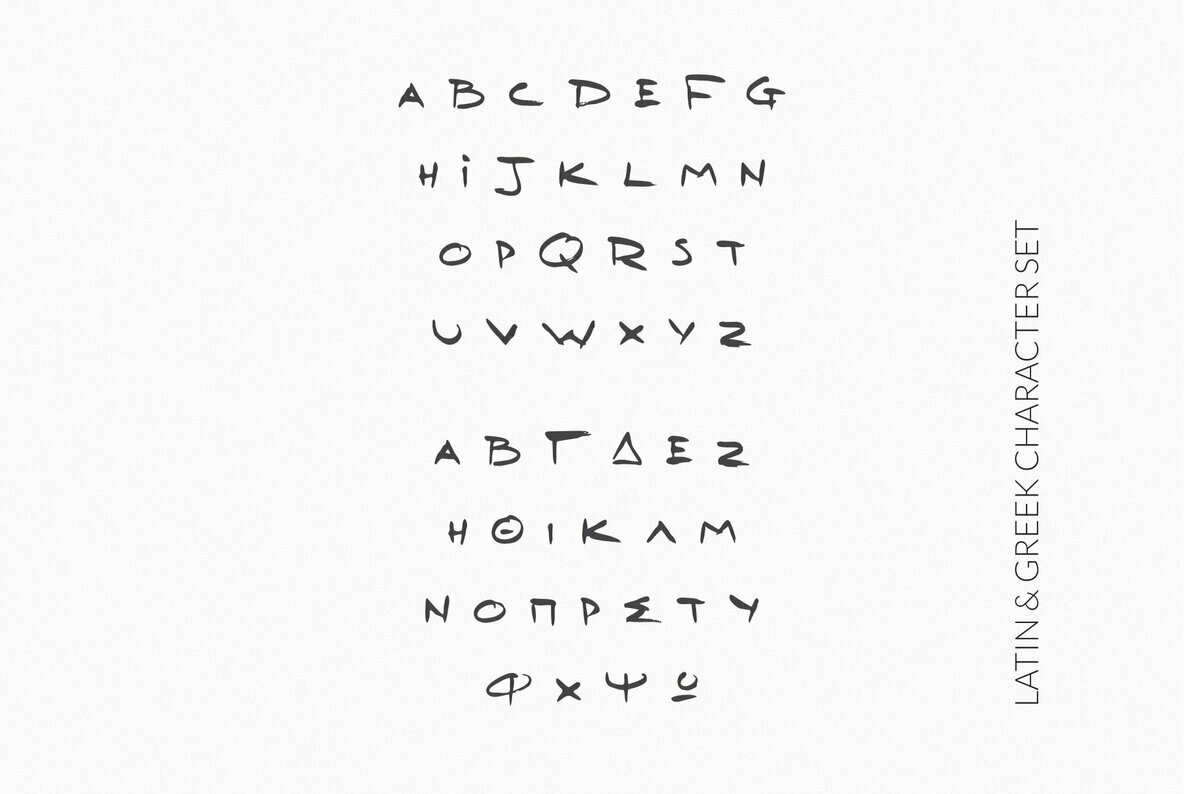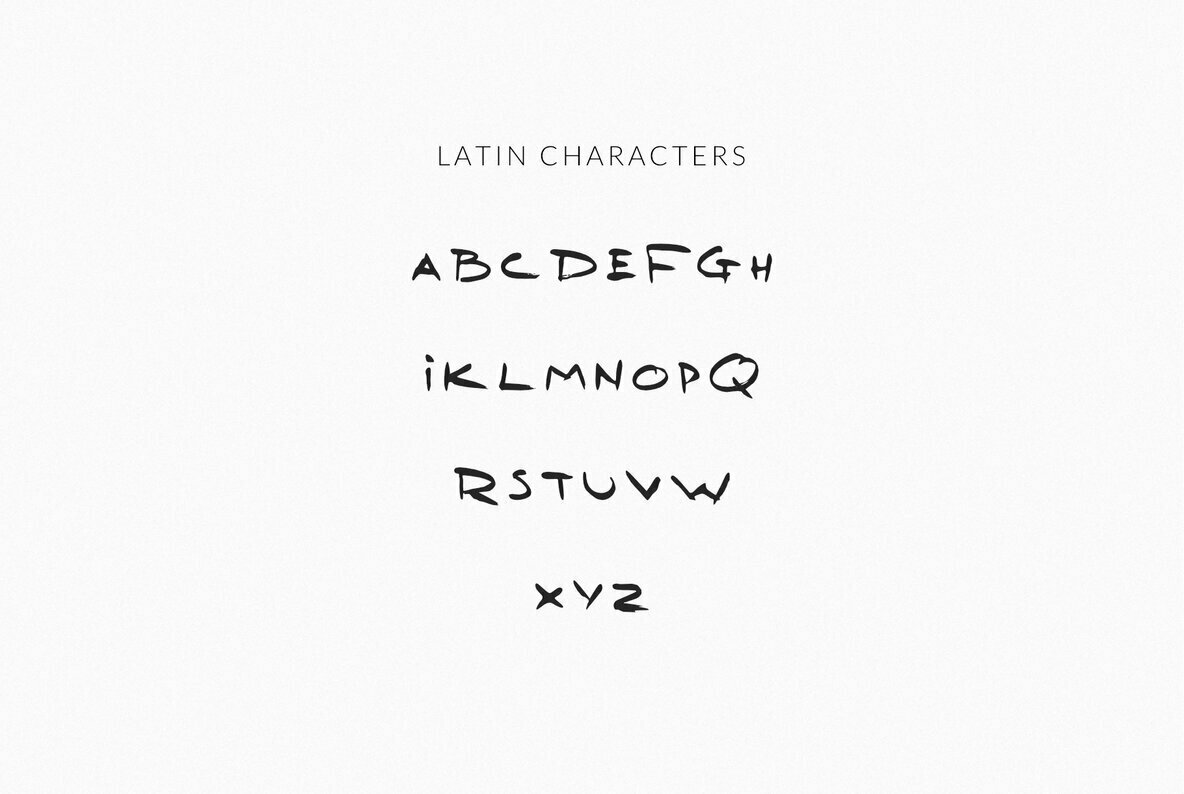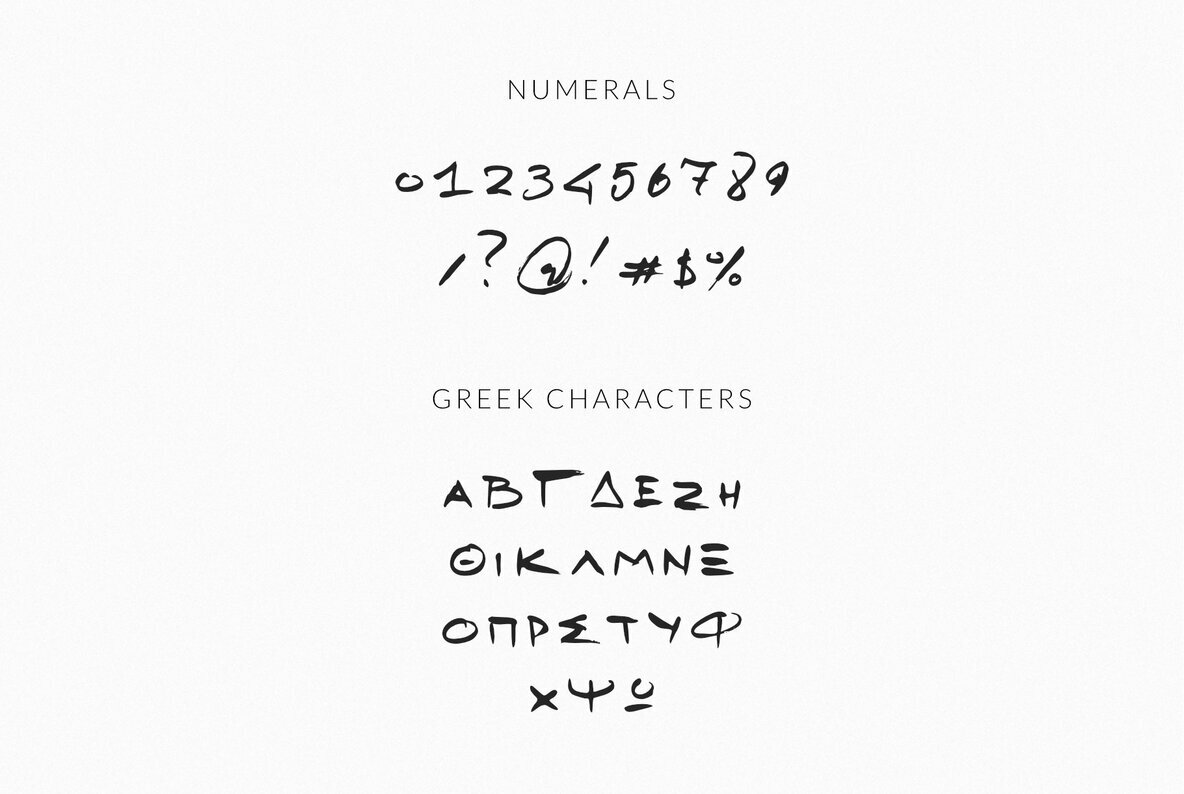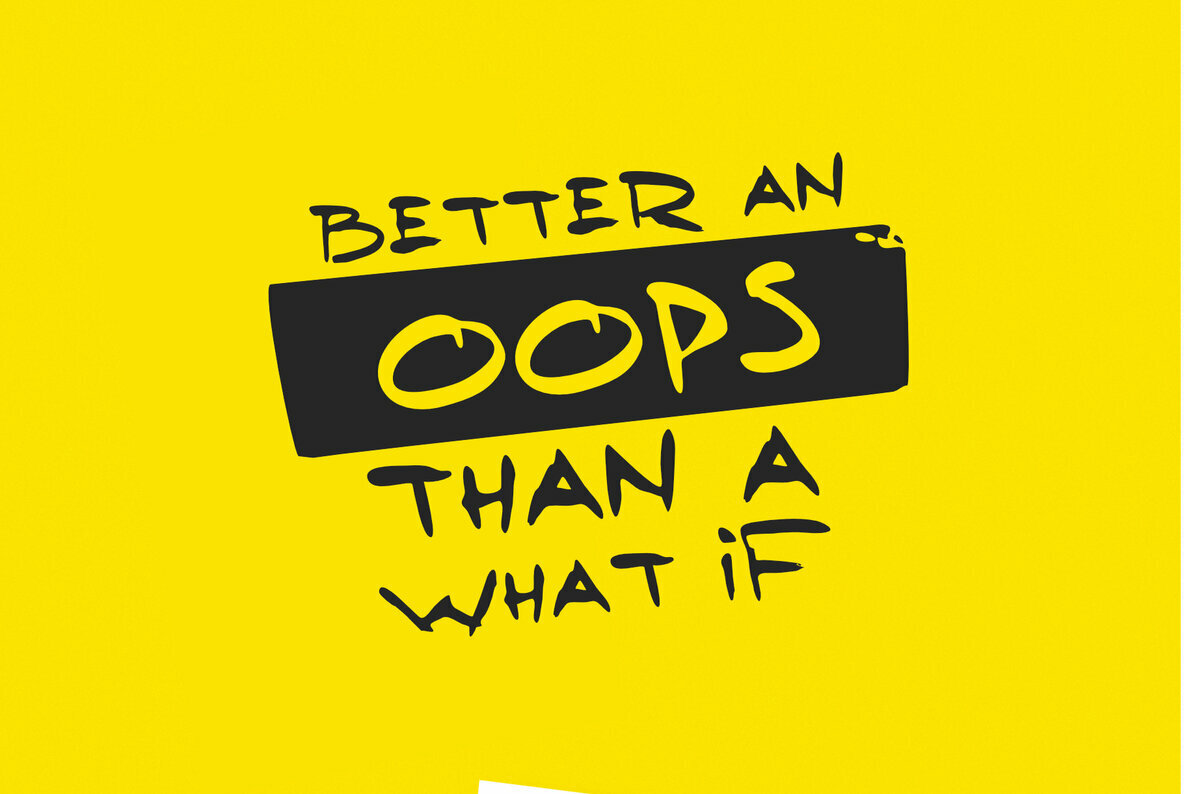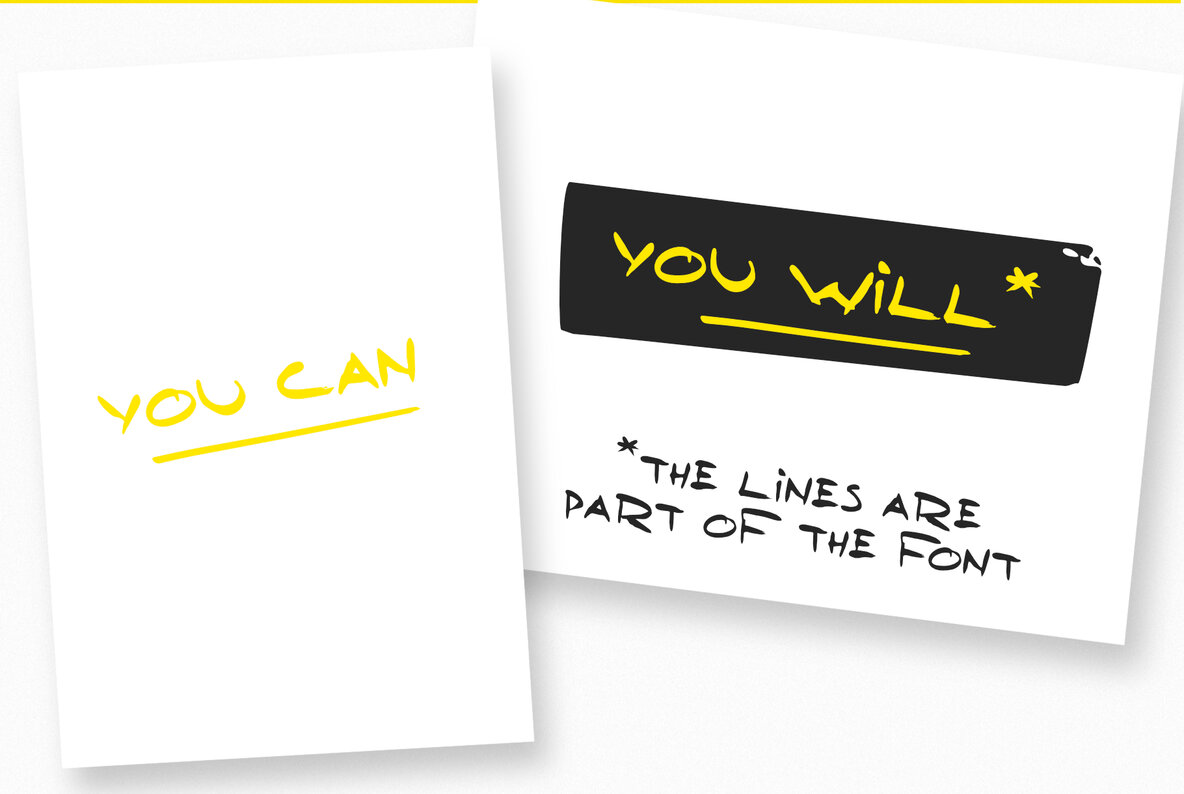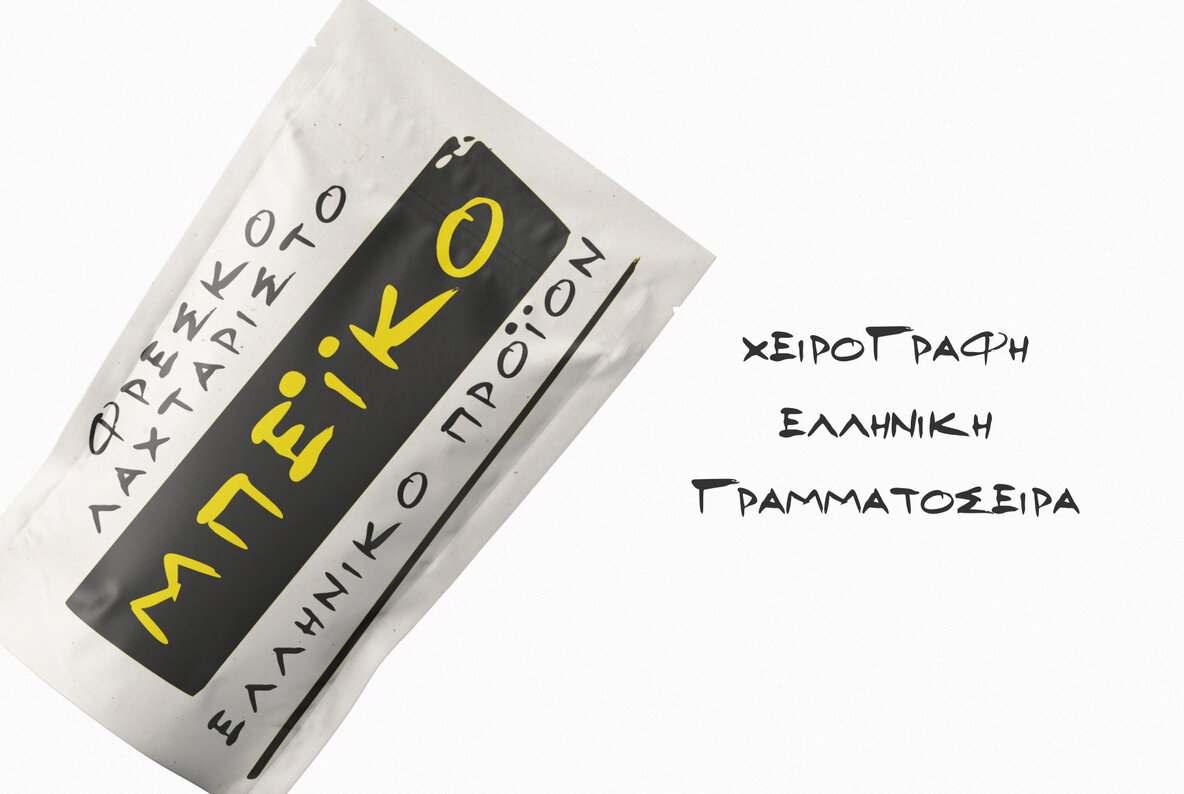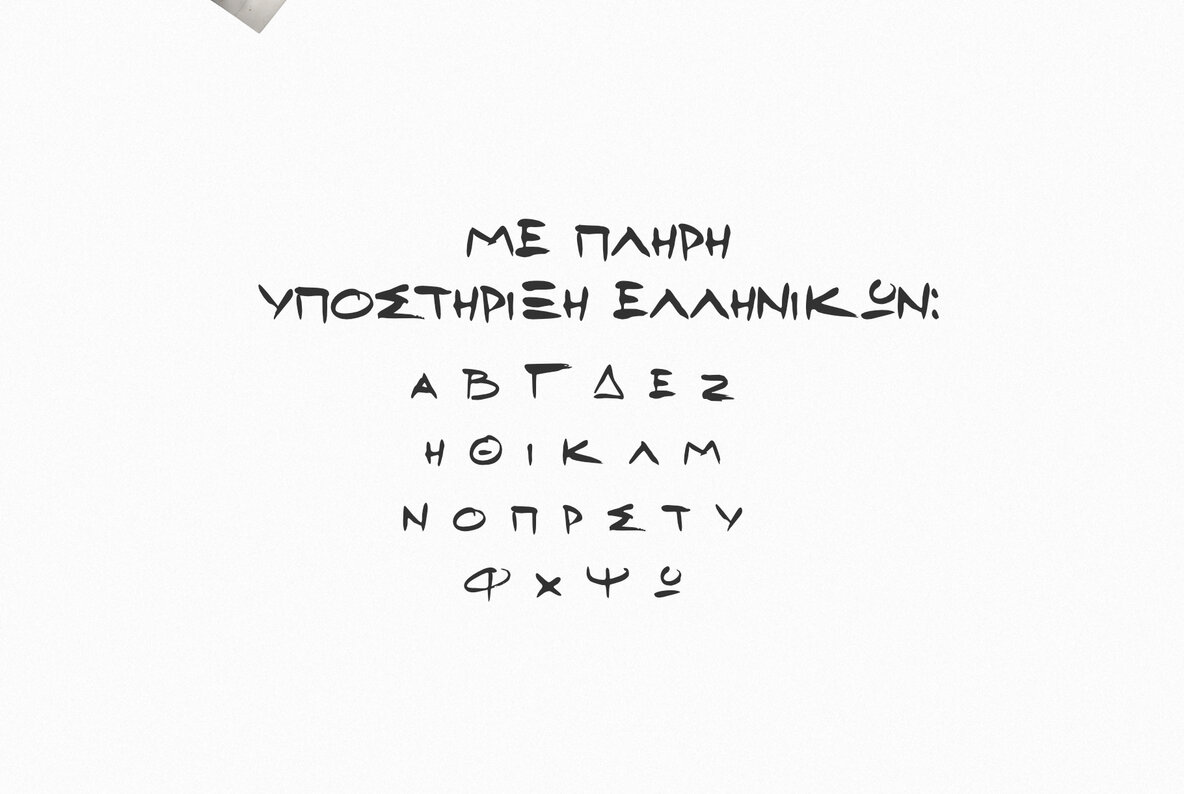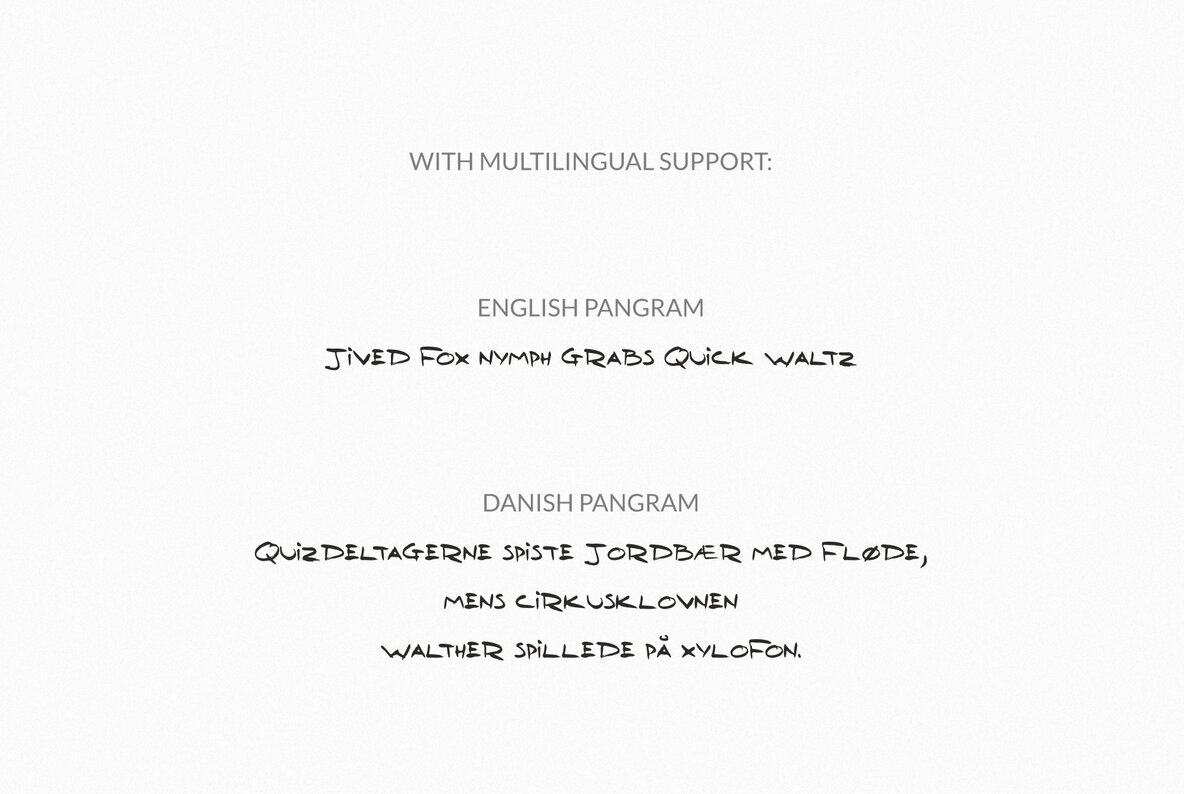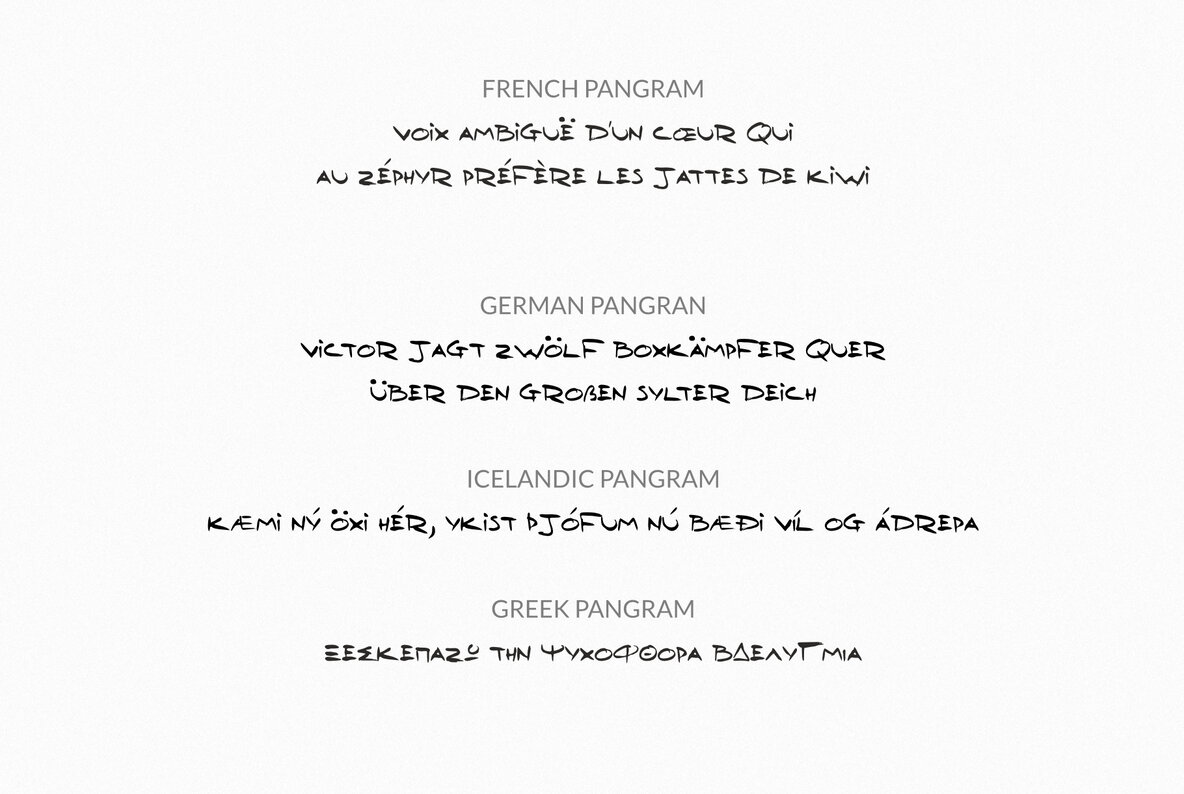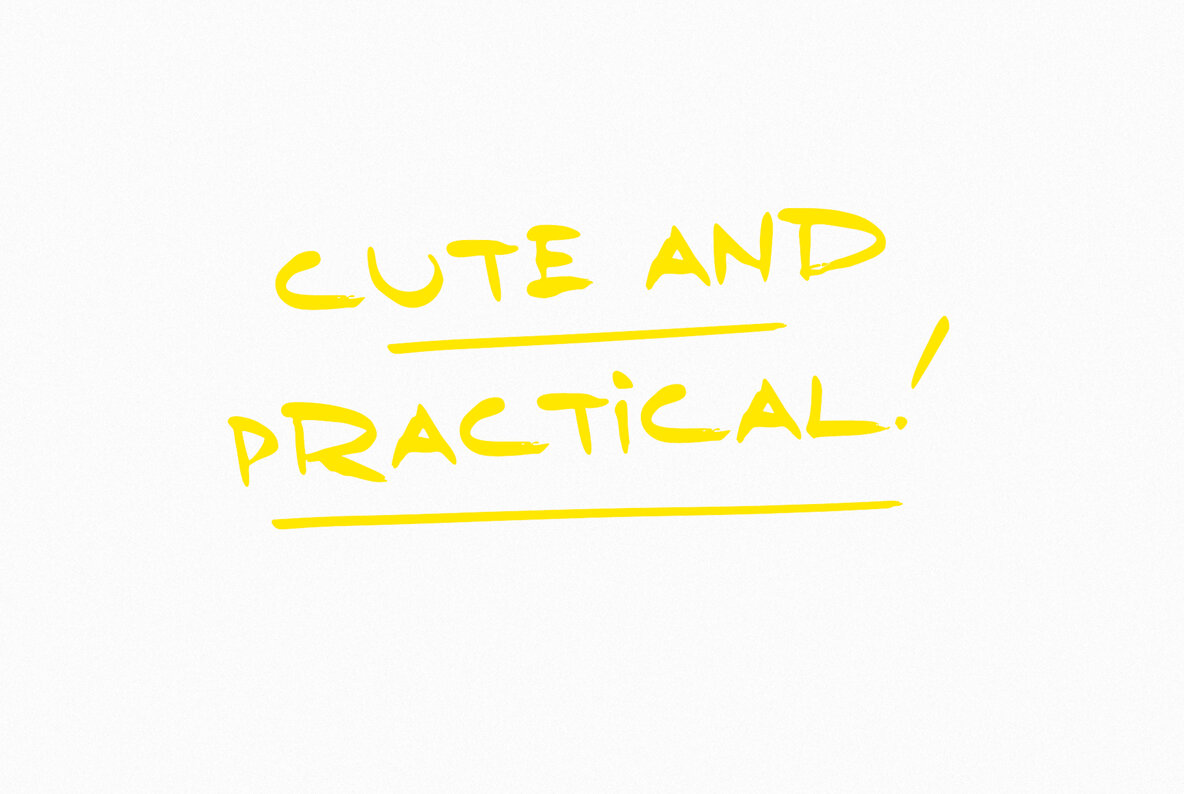
Beiko Font
NF Beiko Regular
Beiko Uppercase Greek Font is a decorative display font, made from digitized brush hand lettering. Of course, the uppercase font supports a full set of Greek characters and an extended Latin character set with diacritics. Also, this handwritten font is ideal for handcrafted projects. The hand-brushed organic style of Beiko is ideal for logotypes.
In fact, this cute typeface can be your next typeface for your graphic design needs. From Instagram quotes to product packaging, merchandise, and branding projects, this font is so fun to use. Also, it can be used on social media content, for branding, poster design, for children’s projects, and any other kind of product packaging.
- Extended Latin Character in Uppercase
- Greek Characters in Uppercase
- Numerals